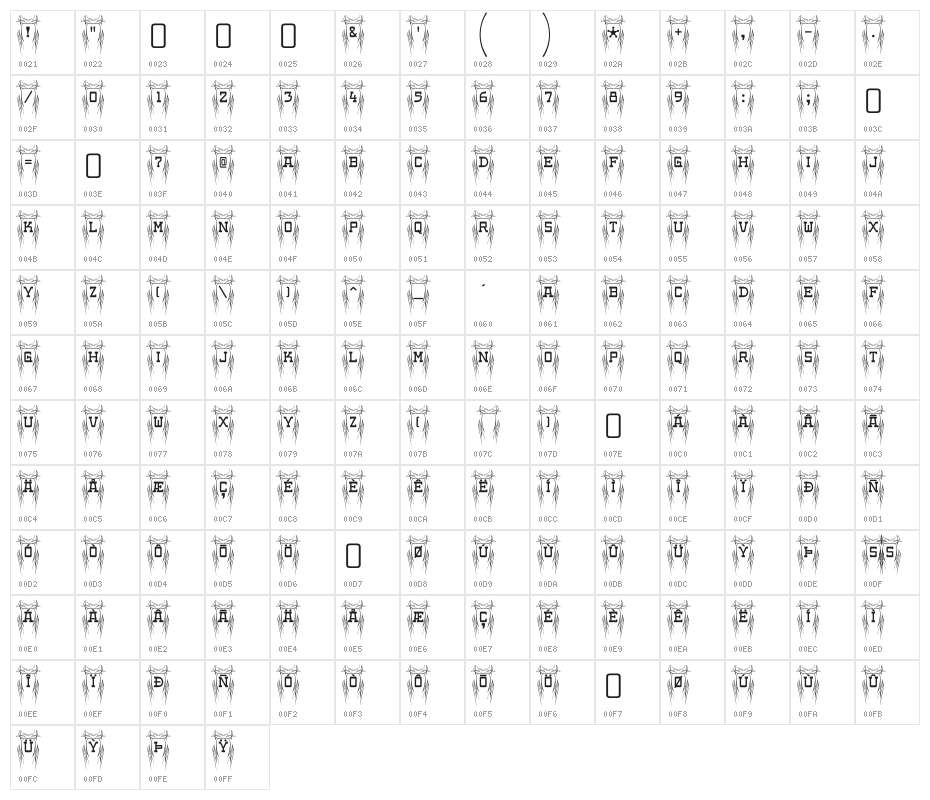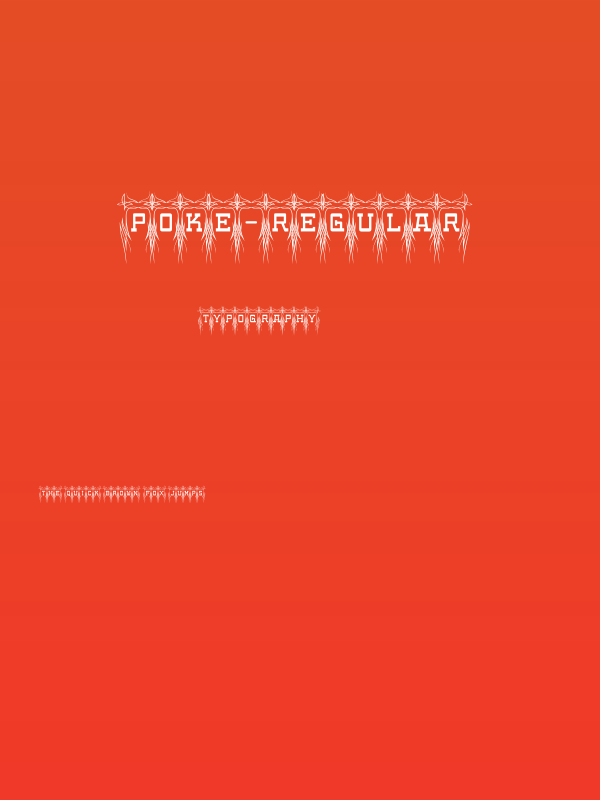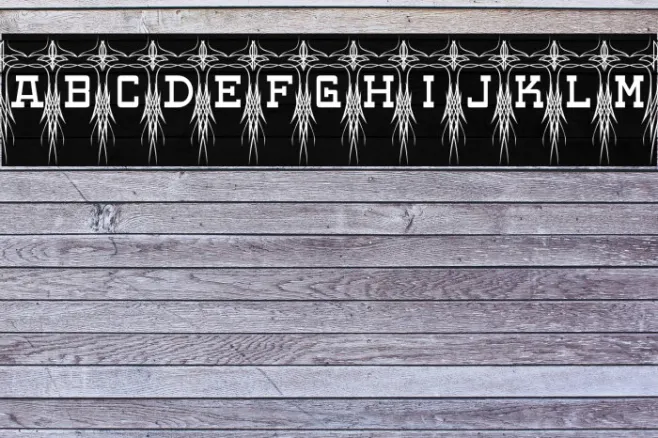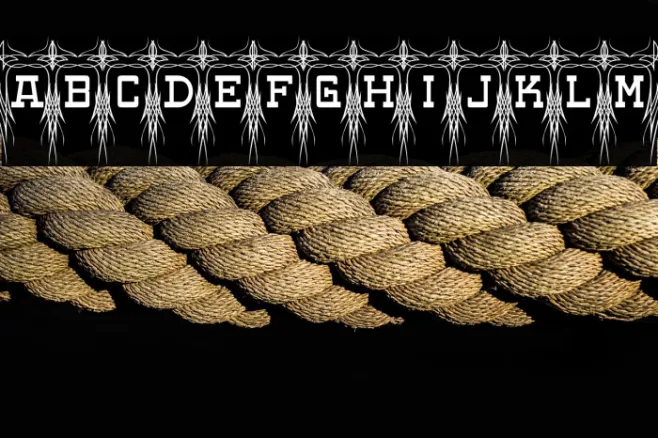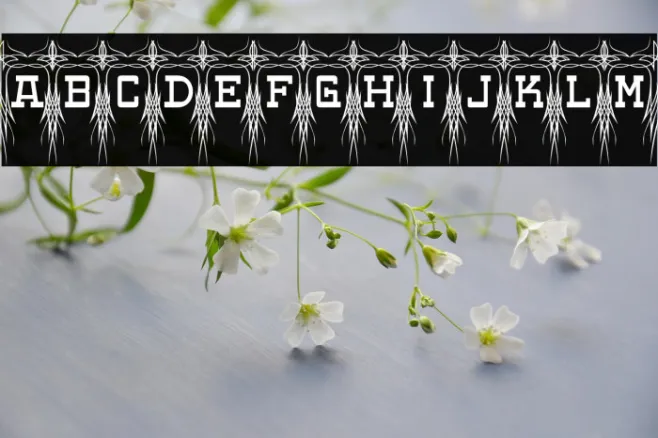
Poke-Regular Font
Poke-Regular Description
This font features a bold and striking design with a decorative flair. Each character is enclosed within a unique, ornate frame that resembles intricate linework, adding a sense of elegance and complexity. The letters themselves are bold and geometric, providing a strong contrast against the delicate background. This combination of boldness and decoration makes it ideal for eye-catching designs. The numbers and special characters maintain the same stylistic elements, ensuring consistency throughout the typeface.
| Proposed Projects | Ideal for posters, album covers, branding projects, and any design requiring a bold, artistic statement. |